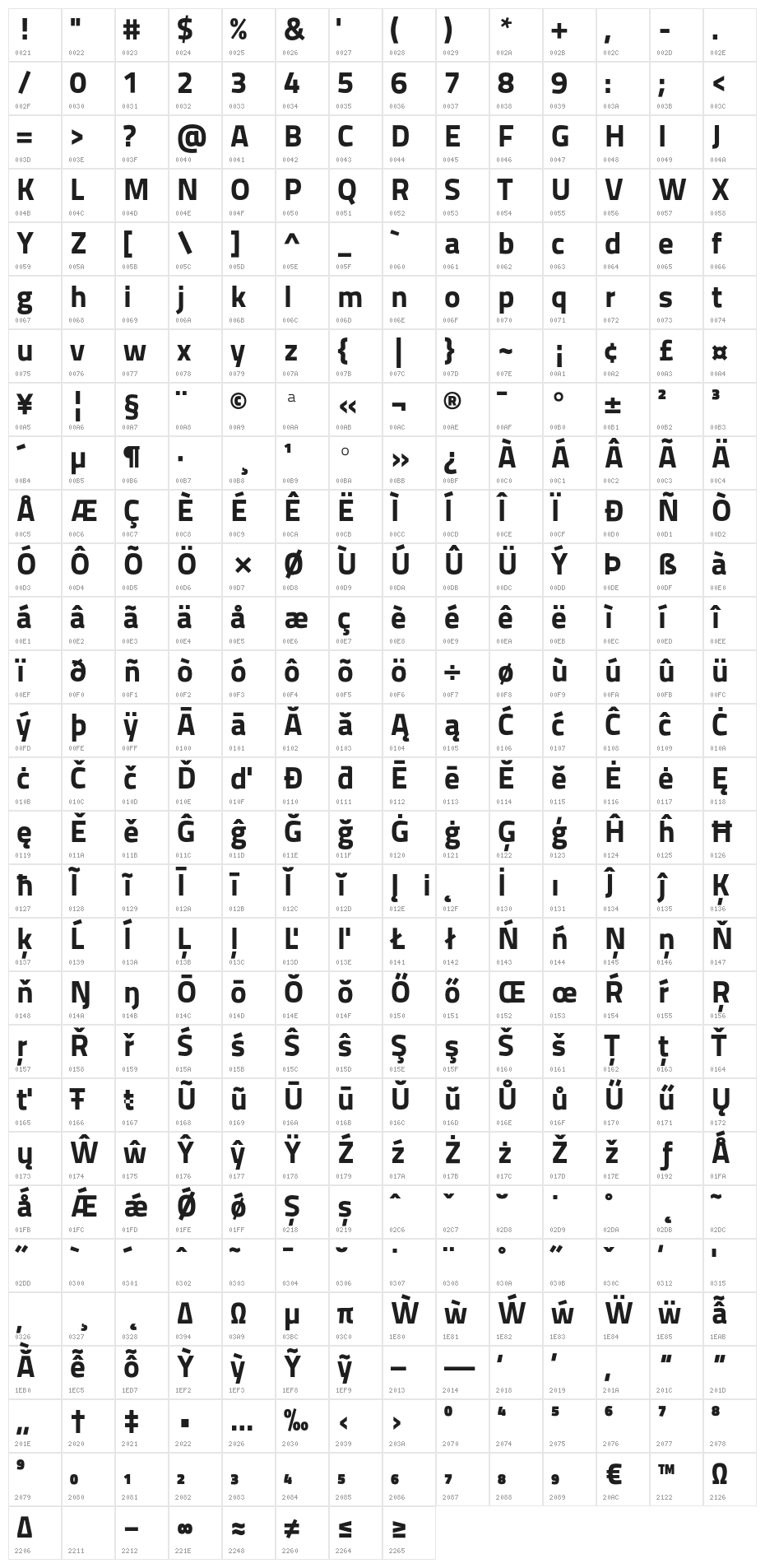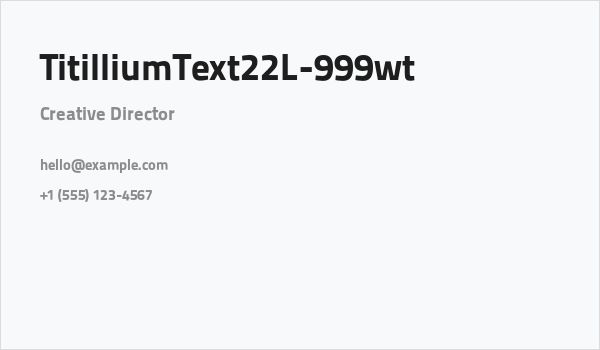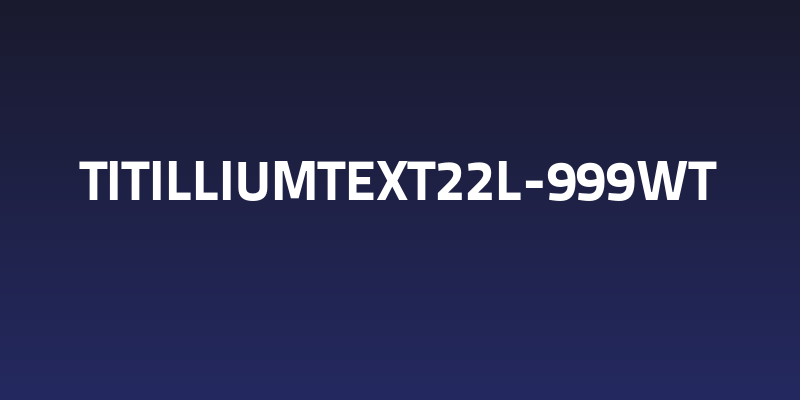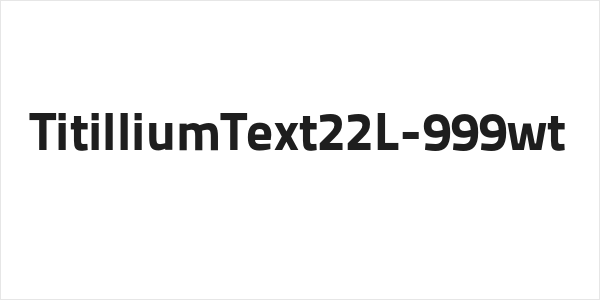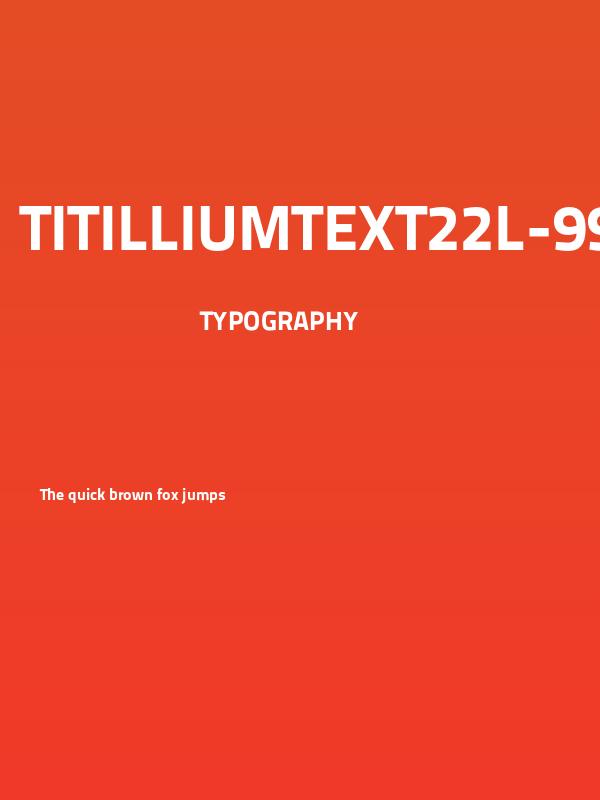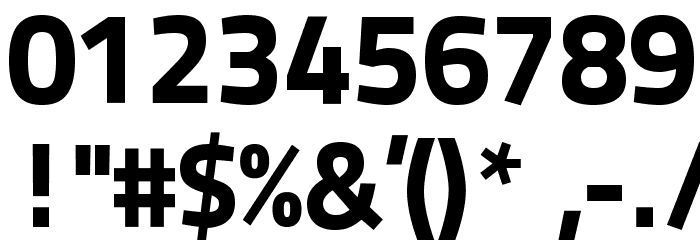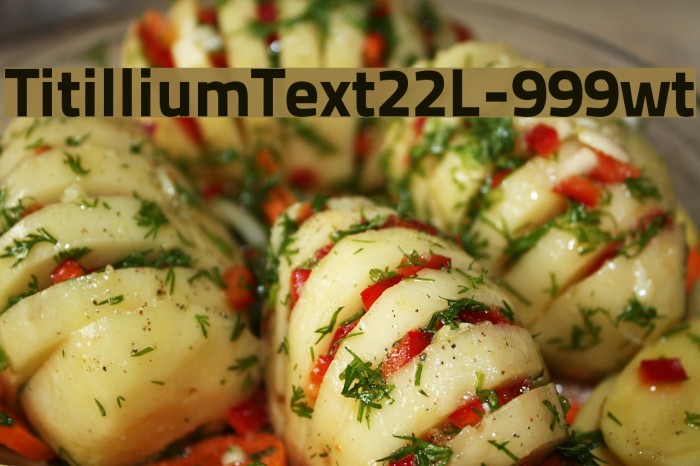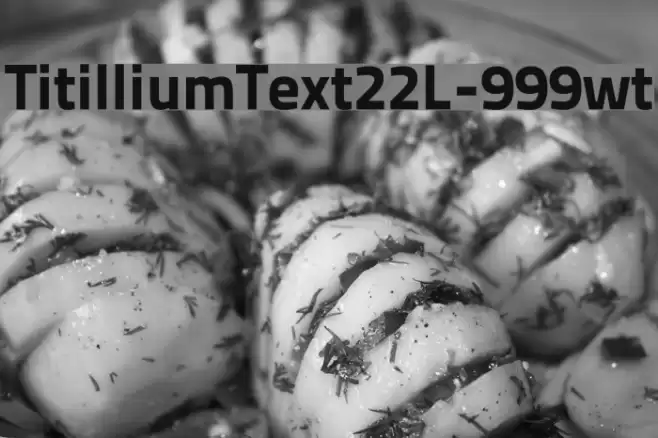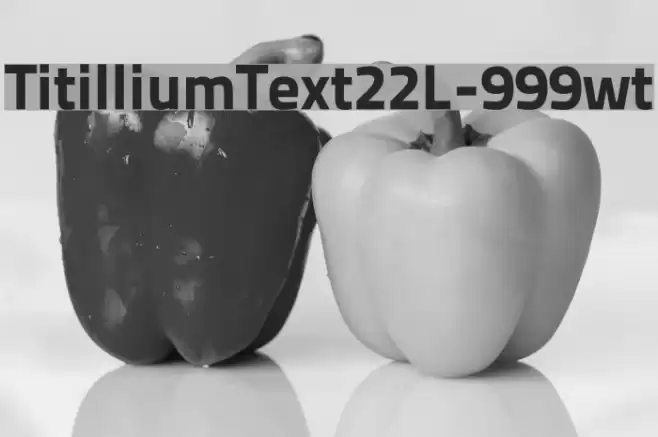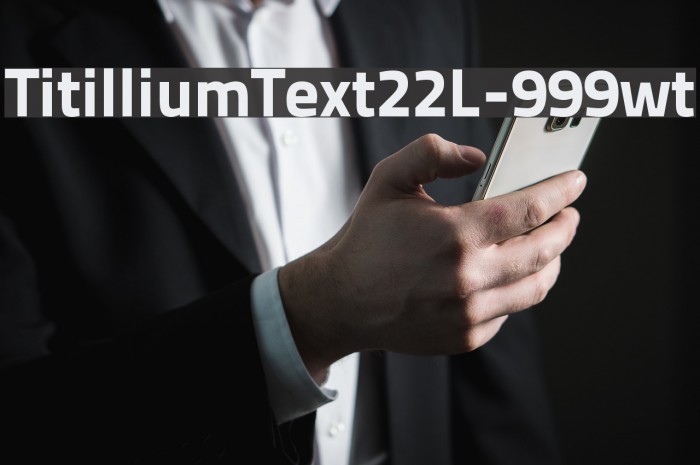
TitilliumText22L-999wt Font
TitilliumText22L-999wt Description
This typeface presents a clean and modern aesthetic with its sans-serif design. The characters are bold and well-defined, offering excellent readability. The uppercase letters are uniform in height, while the lowercase letters maintain a consistent baseline, enhancing the overall balance. The numerals are clear and distinct, making them suitable for various applications. Special characters are well-integrated, ensuring versatility in usage. The font's geometric structure and even stroke width contribute to its contemporary appeal, making it a great choice for digital and print media.
| Use Case | Headlines, Body text, Logos |
| Proposed Projects | Ideal for branding, digital interfaces, signage, and editorial design. |